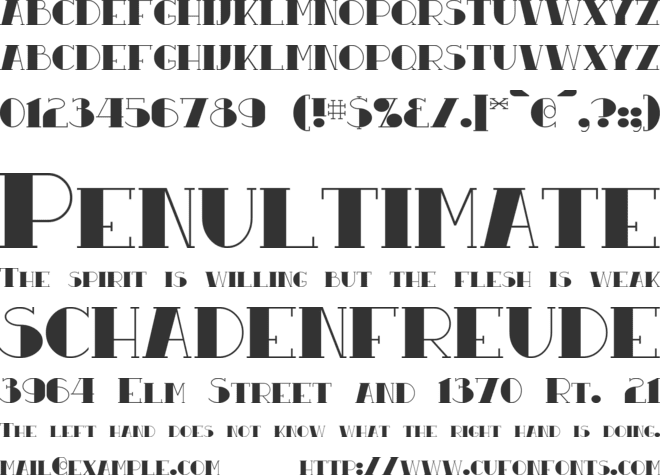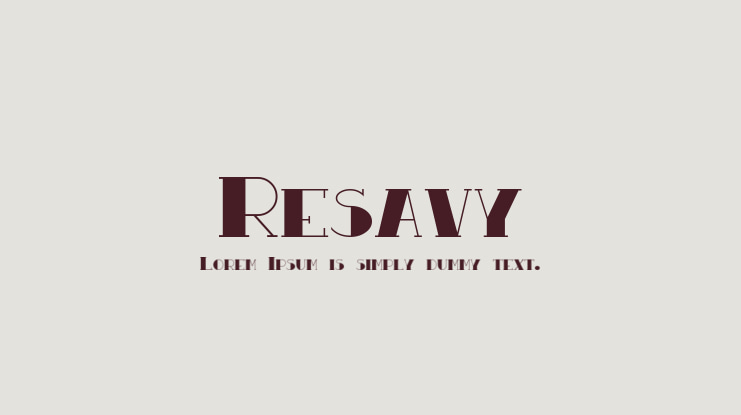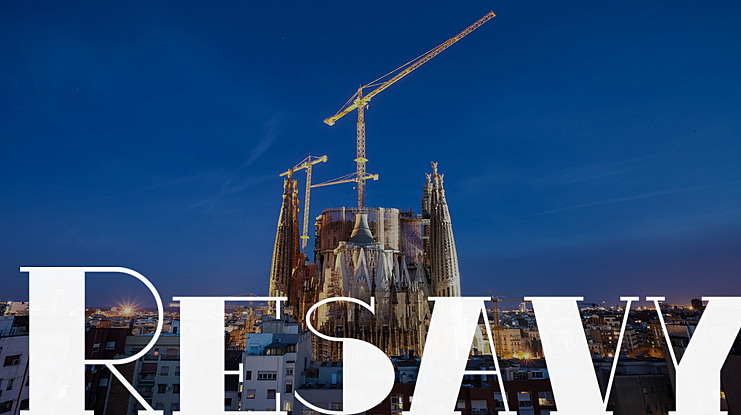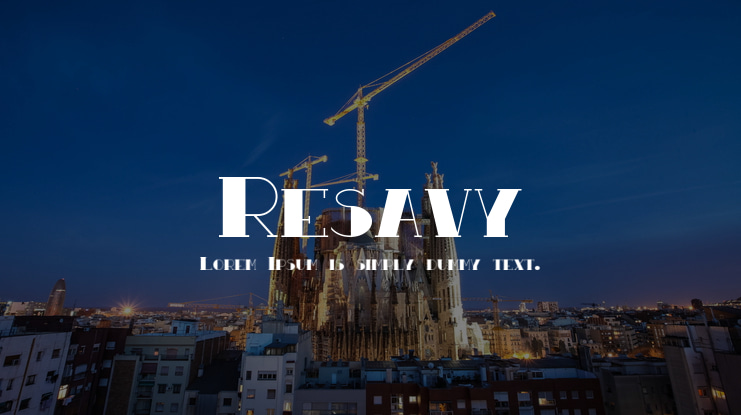
Resavy Font Family
Neale Davidson
Resavy is a stylish art-deco face feature extremely thick base lines with very thin strokes. The face is inspired heavily by “wild west” burlesque marquees. Includes full alphabet, extended punctuation, Euro. Includes regular, bold, italic, and bold-italic weights.